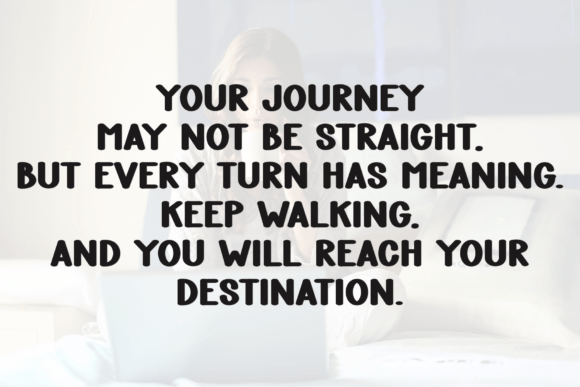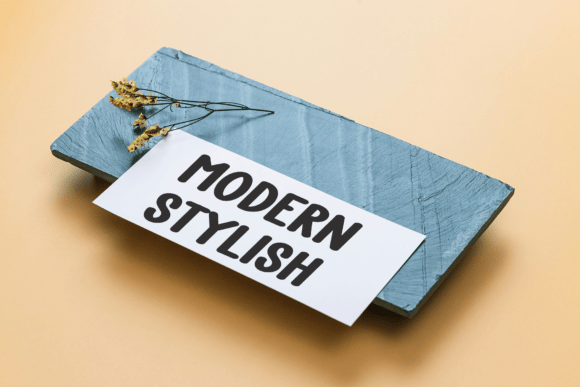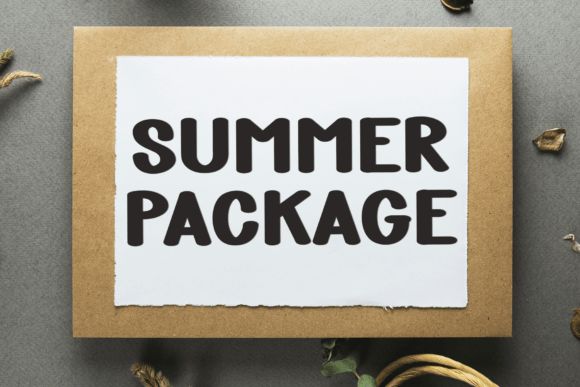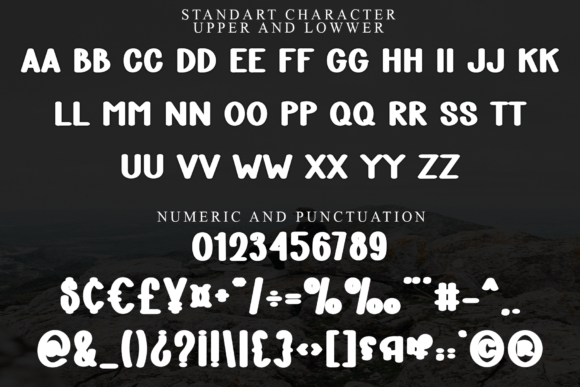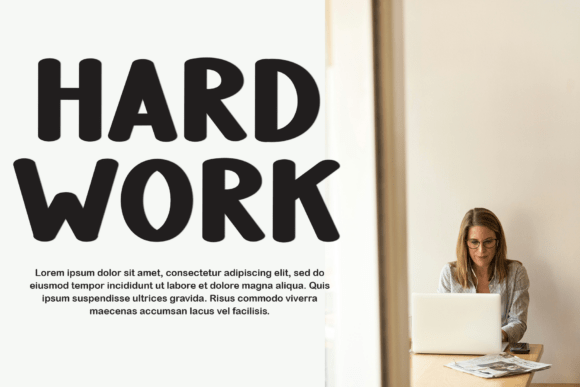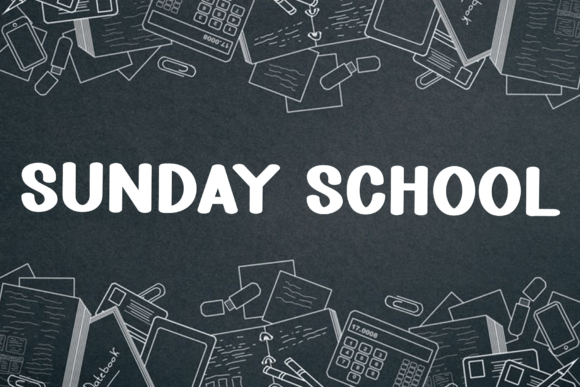
Bird Nest Font: Elevate Your Designs with a Unique and Eye-Catching Typeface
Are you tired of using the same old fonts in your design projects? Look no further than the Bird Nest Font, a beautiful and eye-catching typeface that is sure to elevate your creative works. With its soft, unique touch and distinctive strokes, this font is perfect for designers, crafters, and artists looking to add a special touch to their projects.
A Versatile Font for Various Applications
One of the best things about the Bird Nest Font is its versatility. Its natural font style makes it ideal for a wide range of products, from design projects and crafts to other creative works. Whether you’re working on a logo, brochure, or website, this font is sure to make your designs stand out. Plus, it’s compatible with various applications, including Windows and open-source platforms, making it easy to use in a variety of settings.
Distinctive Strokes and Characters
The Bird Nest Font features distinctive strokes that give it a special character, making it meaningful and versatile for future use. With various characters to choose from, you can add a unique touch to your designs and make them more engaging. Whether you’re looking to create a bold statement or a subtle impression, this font has got you covered.
The Bird Nest Font is perfect for designers and crafters who want to add a personal touch to their projects. Its unique and eye-catching design makes it ideal for a wide range of creative works, from handmade crafts to digital designs. Whether you’re a professional designer or a hobbyist crafter, this font is sure to inspire your creativity and take your projects to the next level.
Enhance Your Designs with Bird Nest Font
With the Bird Nest Font, you can enhance your designs and make them more appealing to a wide range of audiences. Its natural font style and distinctive strokes make it perfect for artistic and creative fields, such as graphic design, illustration, and crafting. Whether you’re looking to create a cohesive brand identity or a unique visual statement, this font is sure to help you achieve your design goals.
Key Features of Bird Nest Font
- Unique and eye-catching design: The Bird Nest Font features a soft, unique touch that sets it apart from other fonts.
- Distinctive strokes: The font’s distinctive strokes give it a special character, making it meaningful and versatile for future use.
- Various characters: The font features various characters, making it perfect for design projects, crafts, and other creative works.
- Natural font style: The font’s natural font style makes it ideal for a wide range of products, from design projects and crafts to other creative works.
In conclusion, the Bird Nest Font is a beautiful and eye-catching typeface that is sure to elevate your design projects and creative works. With its unique and distinctive design, versatile applications, and natural font style, this font is perfect for designers, crafters, and artists looking to add a special touch to their projects. So why settle for ordinary fonts when you can use the Bird Nest Font to make your designs stand out?
Whether you’re a professional designer or a hobbyist crafter, the Bird Nest Font is a must-have in your font collection. Its ability to enhance your designs and make them more appealing to a wide range of audiences makes it an invaluable resource for anyone looking to take their creative works to the next level.